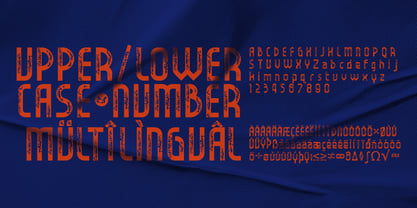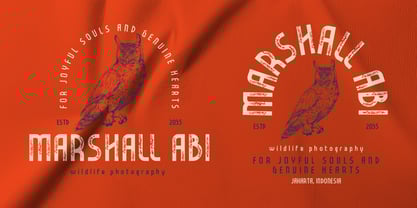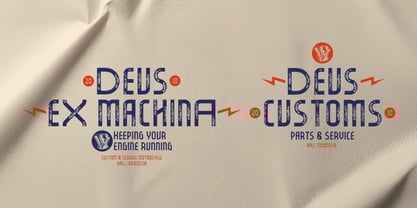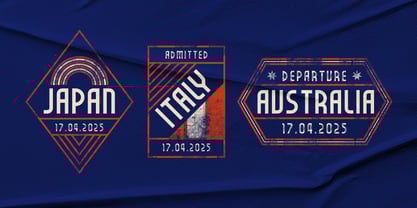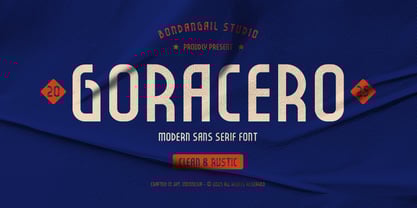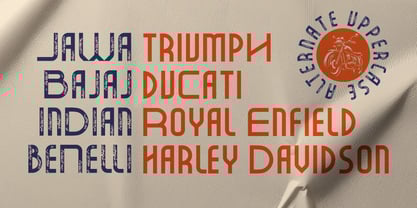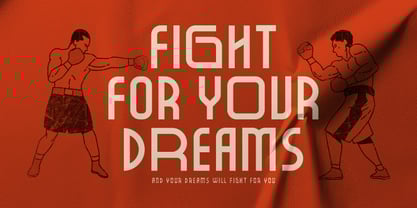
Goracero
by BondanGail
The Goracero Font Family was designed by Bondan Gail Saputro and published by BondanGail. Goracero contains 2 styles and family package options.
Goracero is a contemporary sans serif display font inspired by vintage aesthetics, embodying the spirit of rustic charm. Available in two unique styles, Clean and Rustic. Goracero features alternate capitalization options in various widths, providing endless creative possibilities for your projects, especially those focused on men’s outdoor products.
Ideal for a variety of applications, including logos, posters, labels, badges, packaging, branding, and custom designs, Goracero adds a modern rustic style to your creations!
• 2 style Typefaces (Regular and Rustic)
• Uppercase, Lowercase, Numeral, Symbol and Punctuation
• Uppercase Alternates
• Multilingual